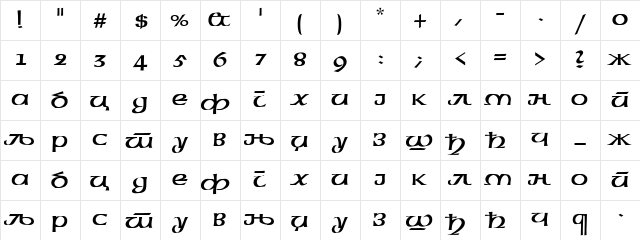
Complete C_American Uncial Regular glyph index. Displaying only characters natively supported by C_American Uncial Regular font.
C_American Uncial is a composed and adaptable typeface that performs quietly and consistently across a wide range of design contexts.